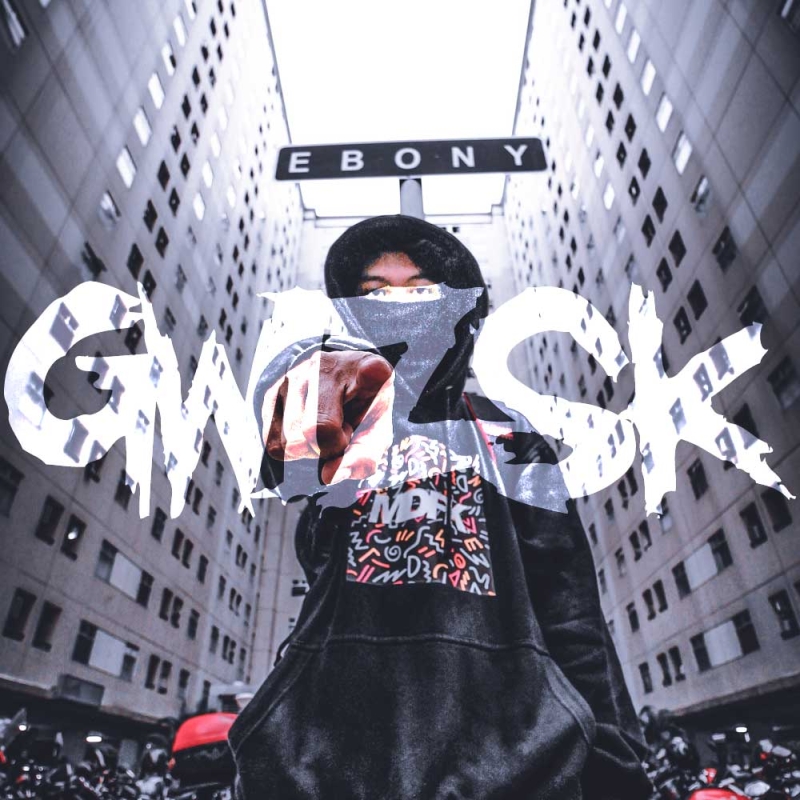
When starting a clothing brand, one of the most important decisions you'll make is what font to use. Your font will set the tone for your brand and convey a certain feeling or image to your customers. It's important to choose a font that accurately represents your company and its values. In this blog post, we'll discuss the different types of fonts and how to choose the perfect one for your clothing brand.
What type of image is your brand trying to portray? Is it modern and edgy, or classic and sophisticated? Once you've determined the image you want your brand to project, you can start narrowing down your font choices.
If you're going for a modern look, consider using a sans serif font. Sans serif fonts are clean and simple, and they convey a sense of professionalism. Some popular sans serif fonts include Arial and Impact. For example: The Yeezus logo is a modified version of Arial. We have a large catalog of aesthetically pleasing sans serif fonts that would be perfect for your brand.
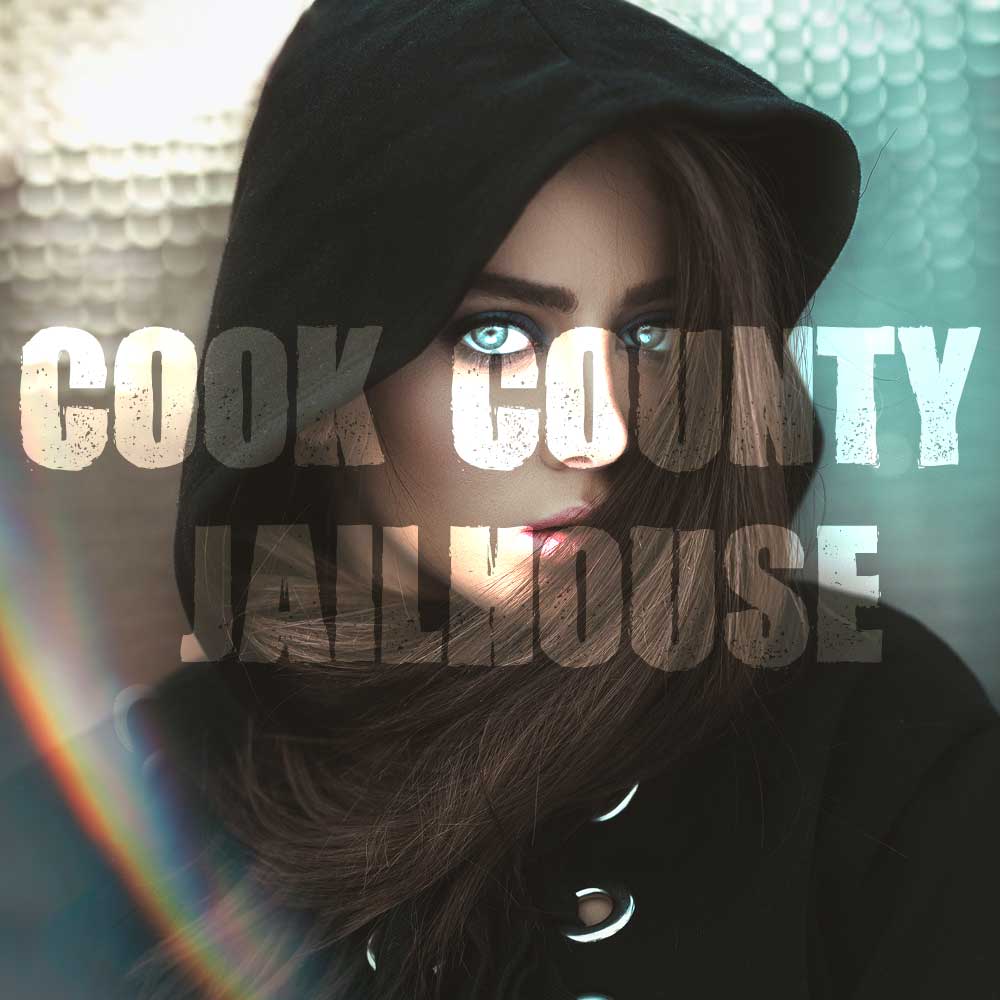
Cook County Jailhouse Font is a bold and edgy font perfect for brand identity
If you're going for a more classic look, consider using a serif font. Serif fonts are slightly more ornate than sans serif fonts, and they convey a sense of tradition and stability. We have a few serif fonts to pick from like our Font Black Dahlia and or Fallen Spartans.
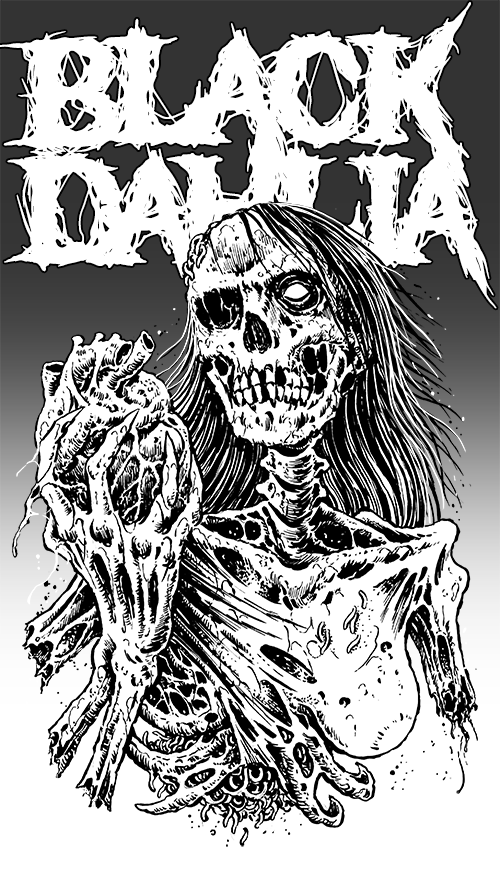
Example of the font Black Dahlia Font used in the background of an apparel shirt design
Once you've chosen a general category of font, you can start looking at specific fonts within that category. When you're looking at individual fonts, pay attention to things like the thickness of the strokes and the spacing between. You want a font that is easily readable, so make sure to test out different fonts at different sizes. You don't want your customers to have to strain their eyes to read your clothing labels!
Finally, make sure that you choose a font that reflects the overall aesthetic of your brand.